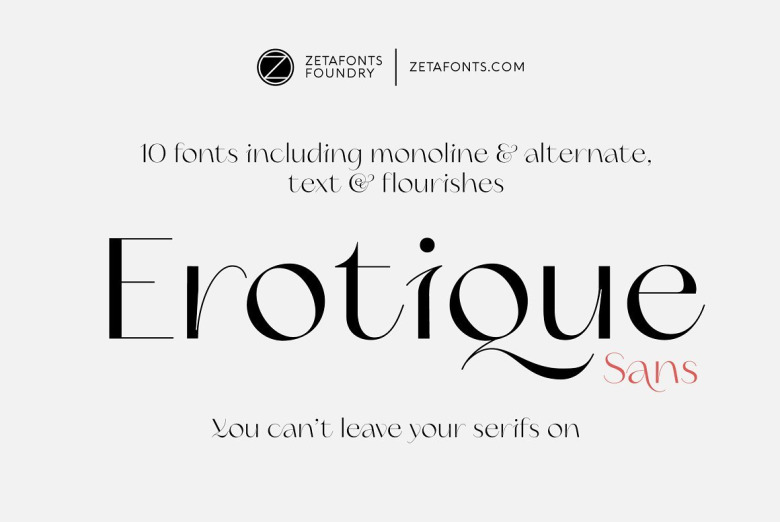
Erotique Sans Serif Font Demo
Erotique Sans Serif Font
Introducing Erotique Sans Serif Font is the sans version of Erotique: a typeface that evolved the original design of Lovelace mixing its romantic curves with the glitchy & fluid aesthetic of trans-modern neo-brutalist typography with the aim of creating a design that was feminine in an assertive and self conscious way. Designed by Cosimo Lorenzo Pancini and Maria Chiara Fantini with the help of Solenn Bordeau.
With its restrained, didonesque elegance, Erotique Sans is mostly thought for display use. Its high-contrast design is ready to take center stage in projects where a subtle elegance and an edgy, contemporary touch are required. All its weights (regular, medium, bold and monoline) have been paired with an Alternate version to give immediate access to a wide array of exotic alternate letterforms, available as Open Type Stylistic Sets in the standard family.